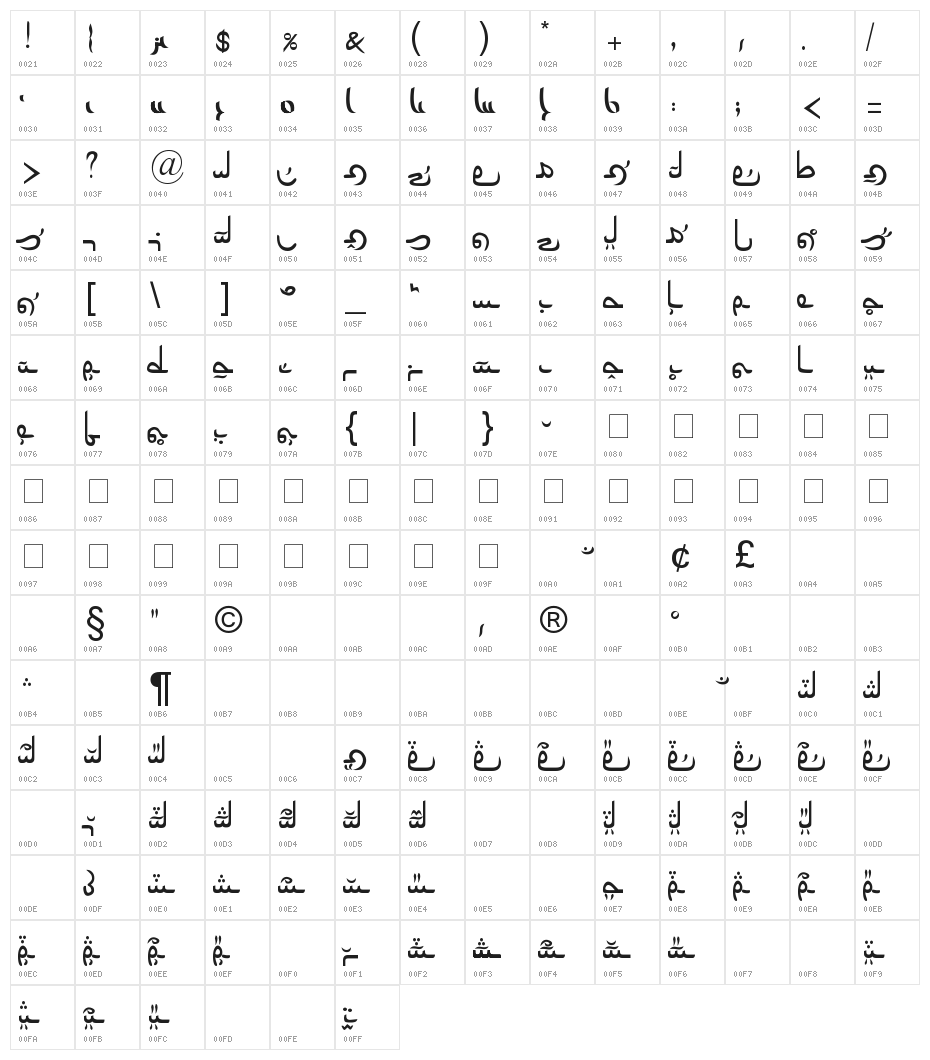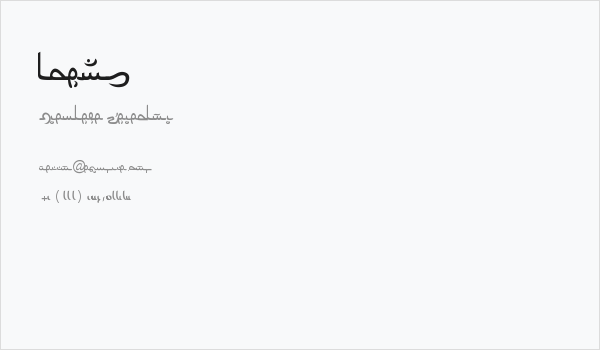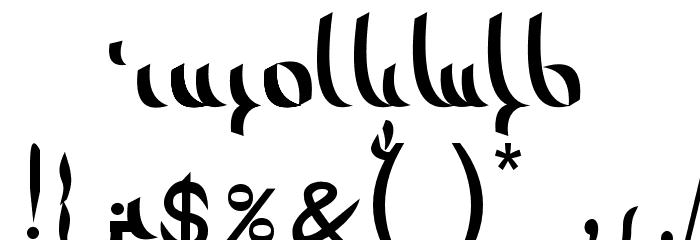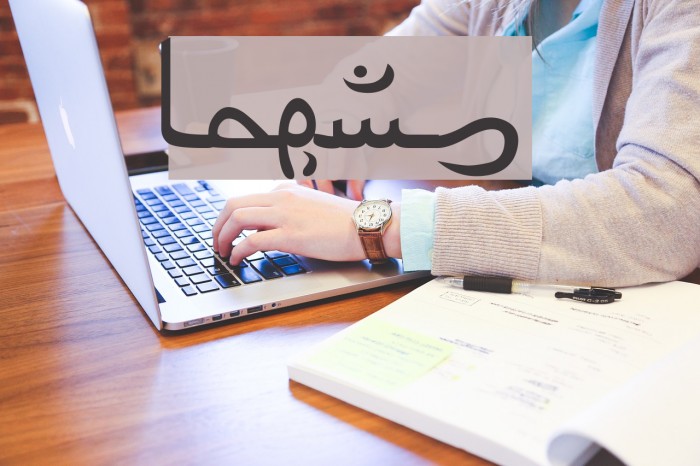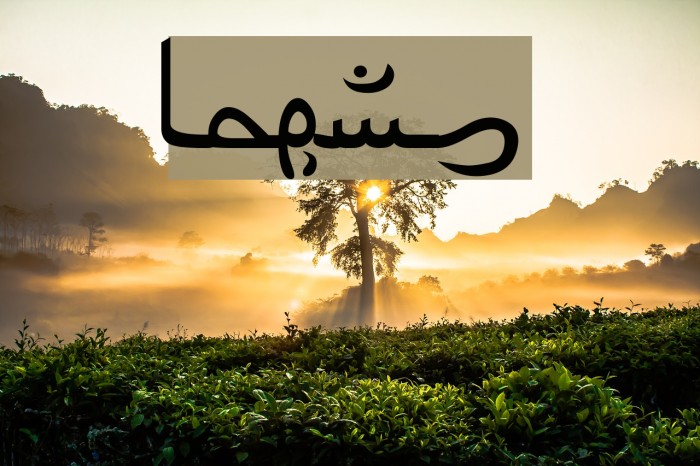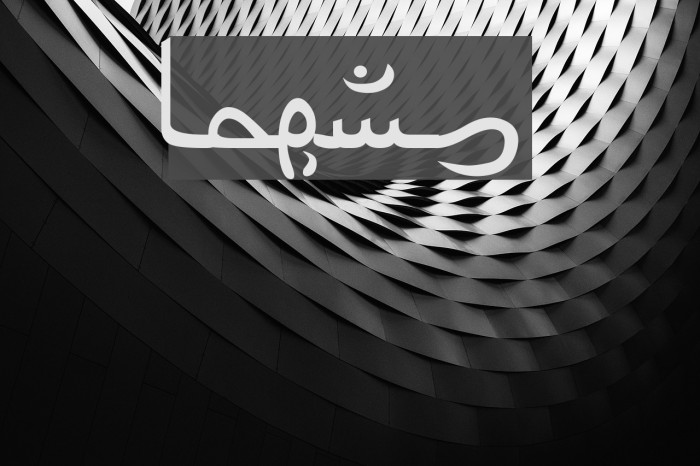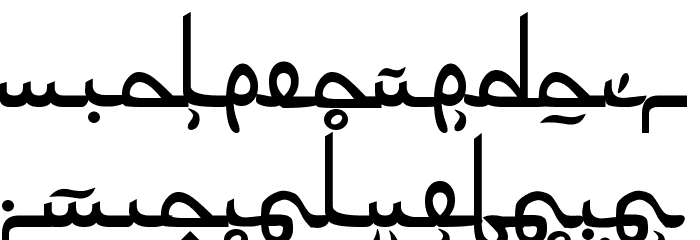
tcia¡R Font
tcia¡R Description
This font features a bold and expressive style with a strong presence. The characters are crafted with a unique blend of curves and sharp edges, giving it a dynamic and modern look. The strokes are thick and consistent, providing a sense of stability and strength. The font maintains a balanced character spacing, ensuring readability while retaining its artistic flair. It is well-suited for making a statement in any design project, offering a distinctive and memorable appearance.